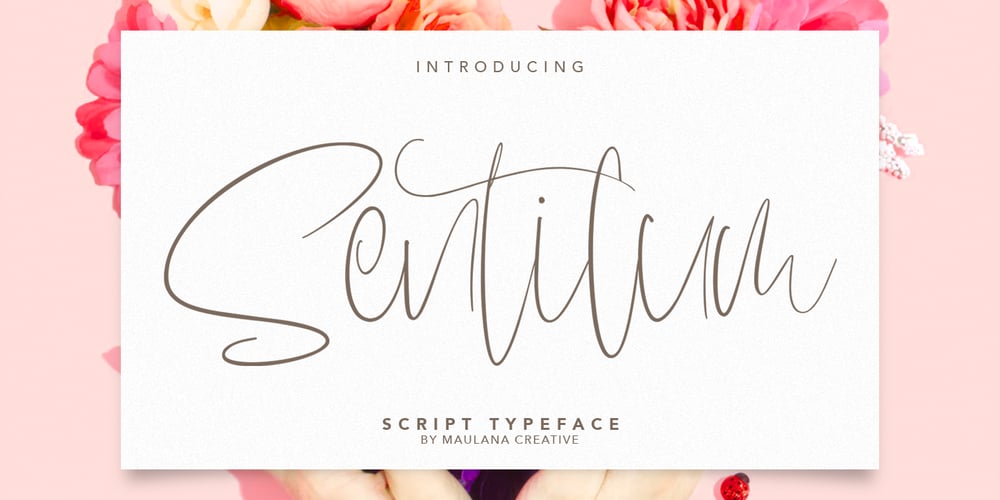
Sentilum
Sentilum font
Sentilum Font Family was designed by Gilang Maulana and published by Maulana Creative. Sentilum contains 1 styles and family package options. Give your designs an authentic handcrafted feel. Sentilum is perfectly suited to signature, stationery, logo, typography quotes, magazine or book cover, website header, clothing, branding, packaging design and more.This font includes:- Ligatures- Multi-lingual Support